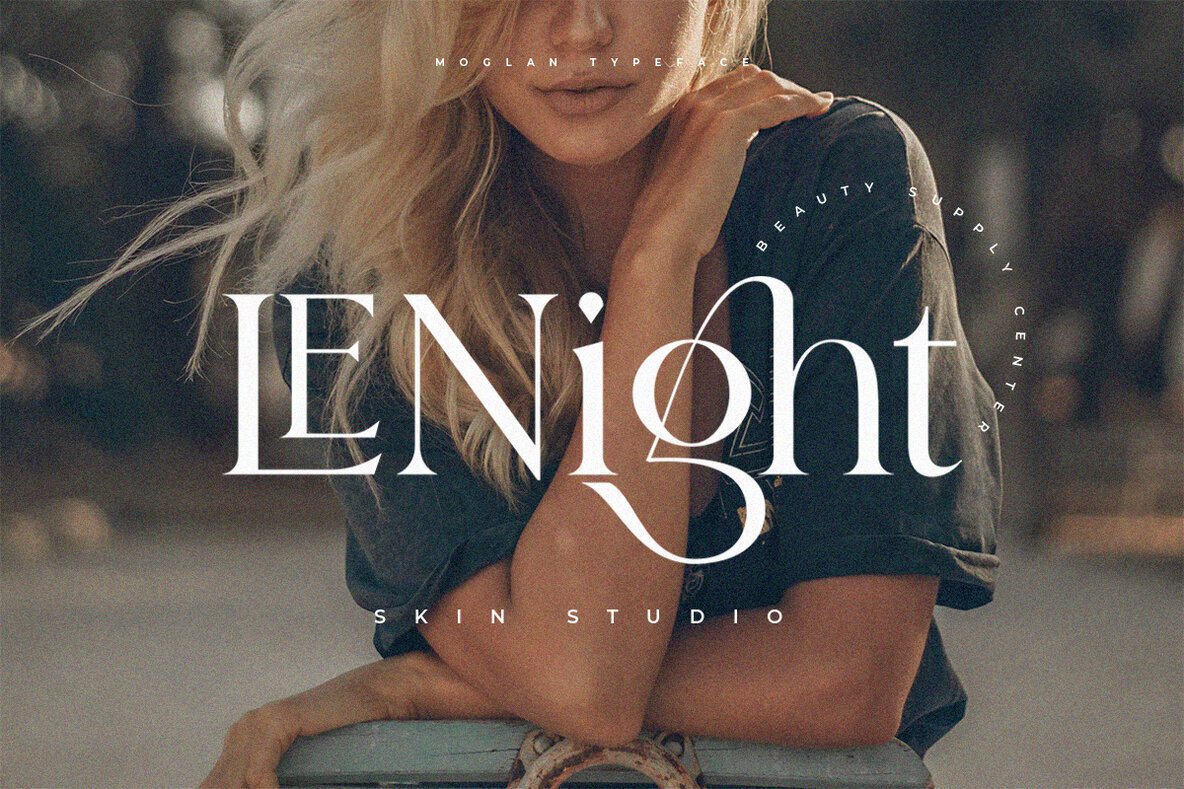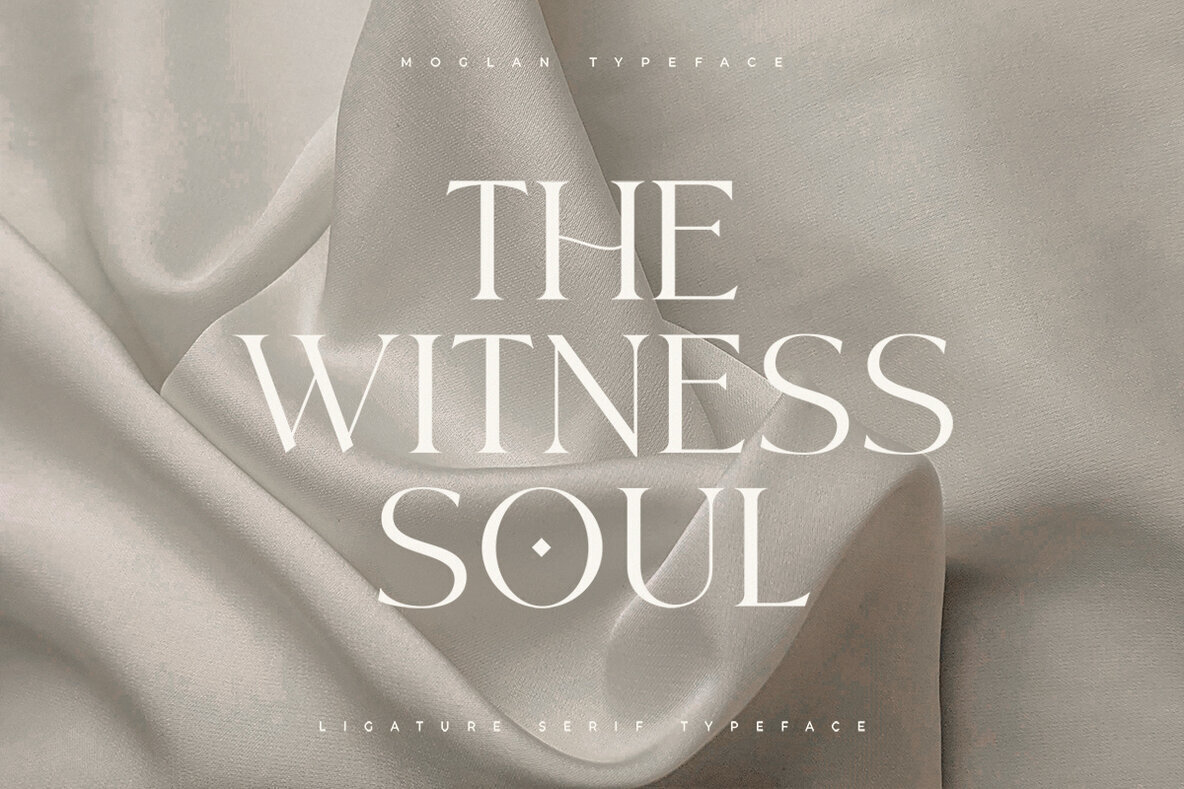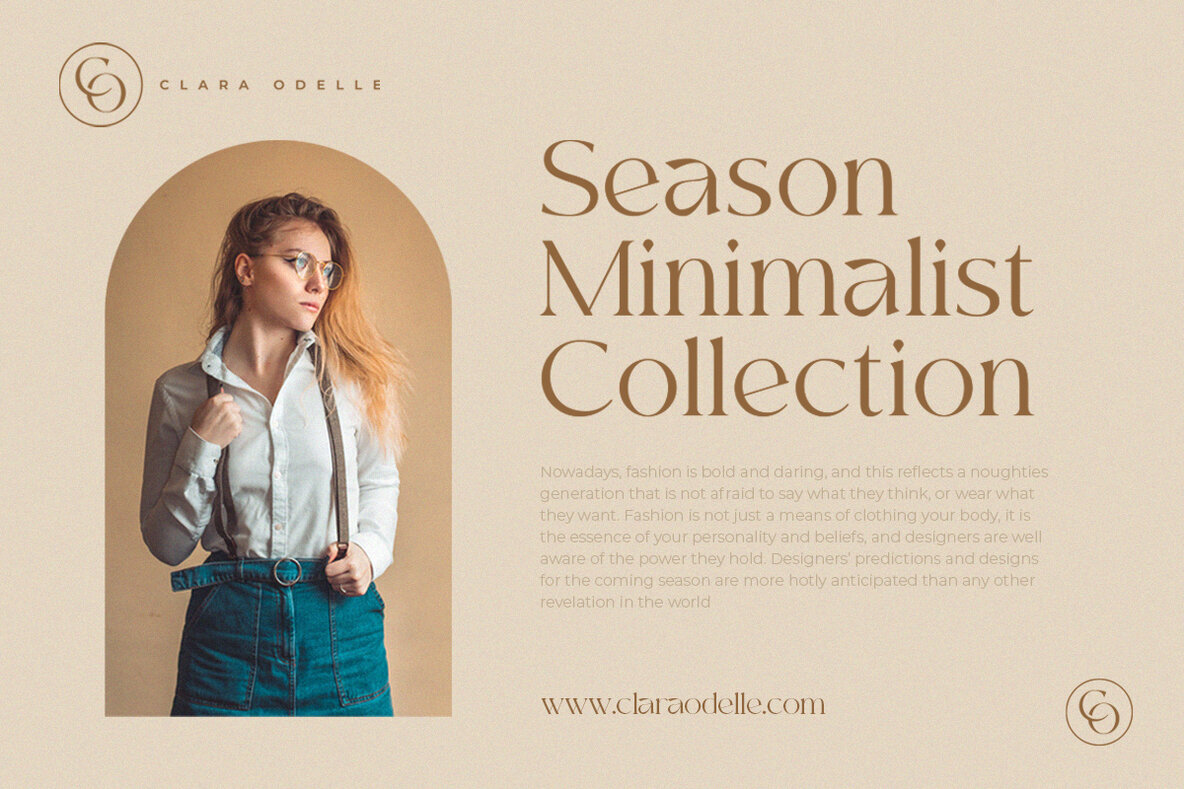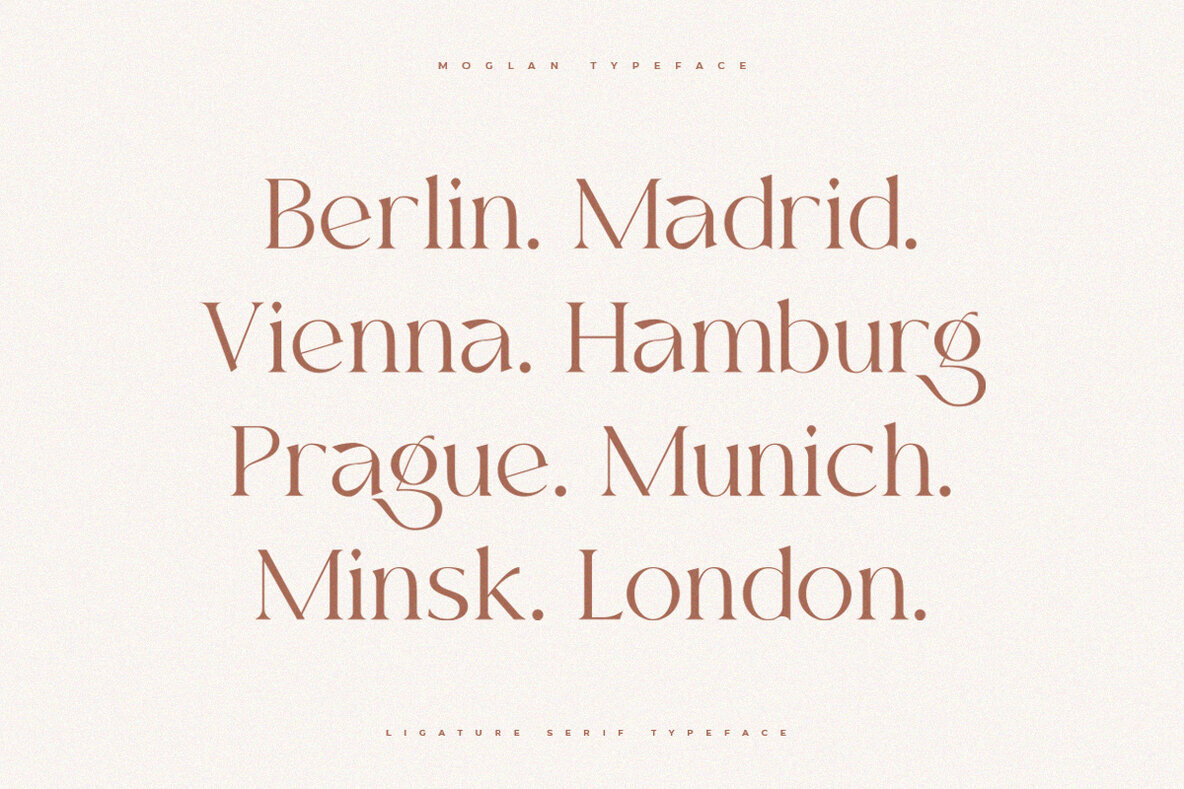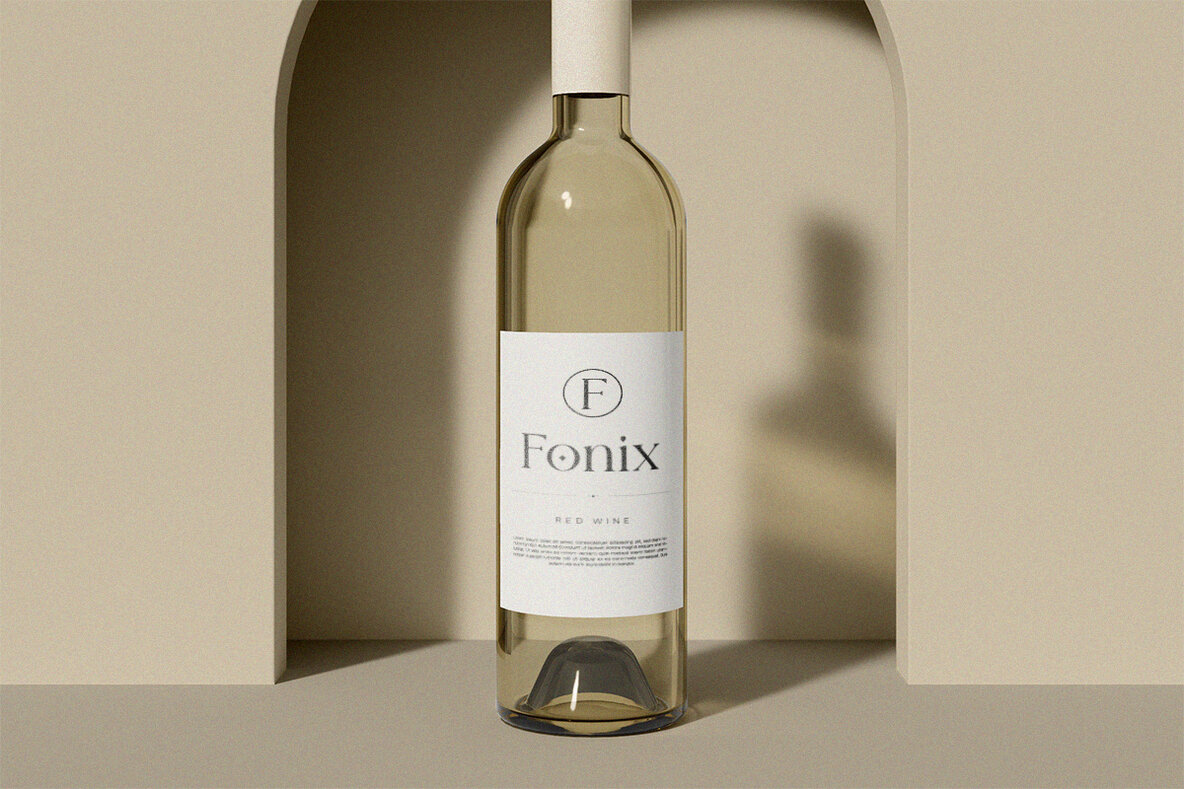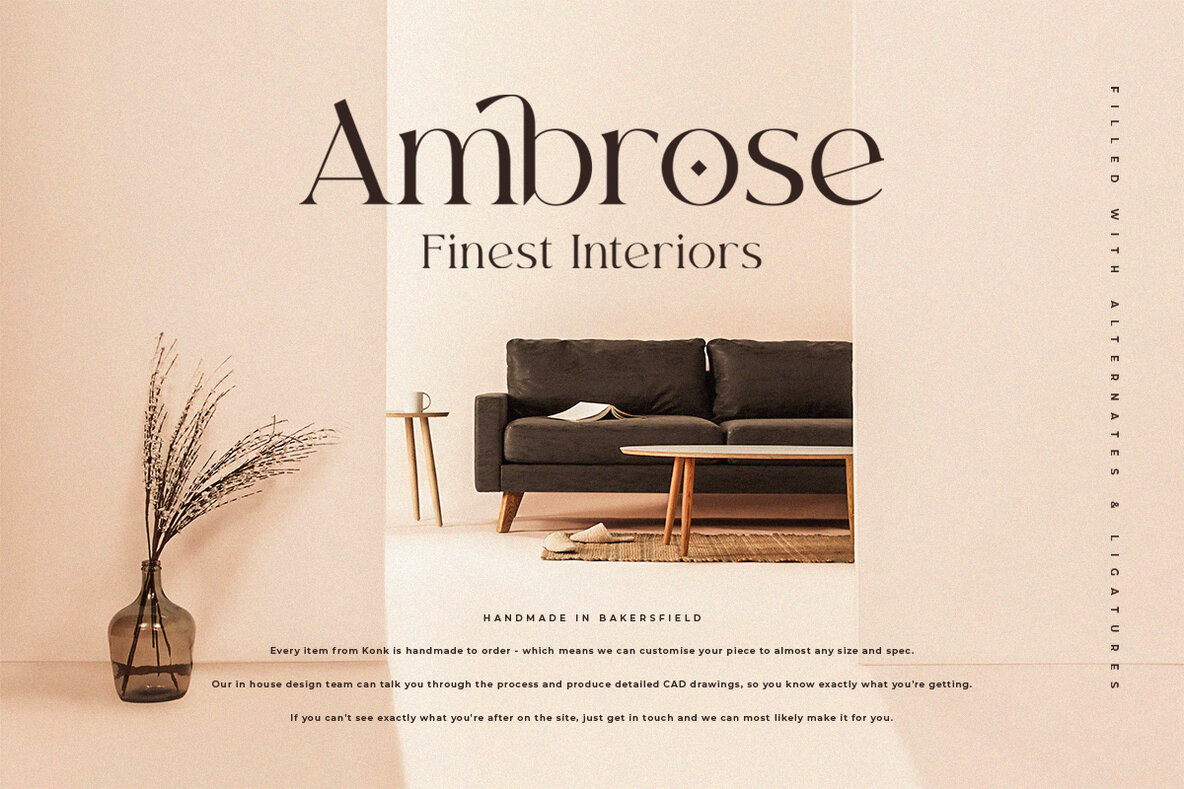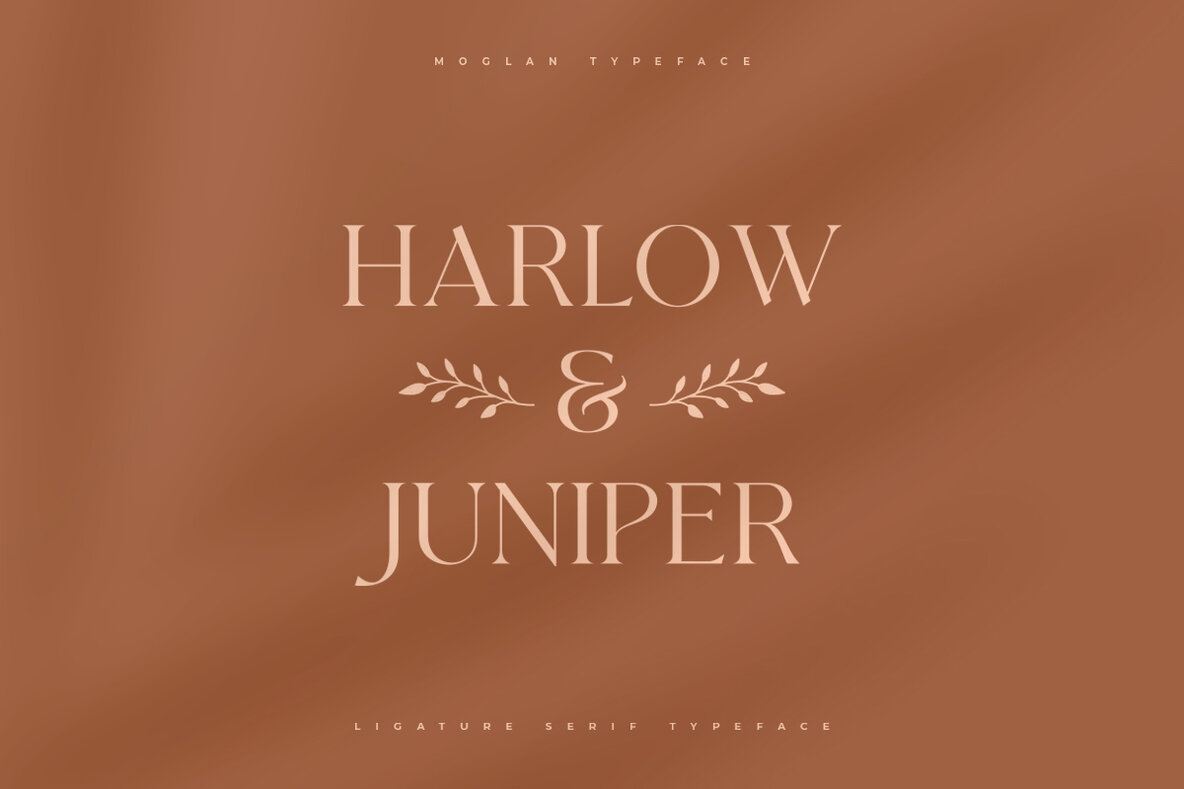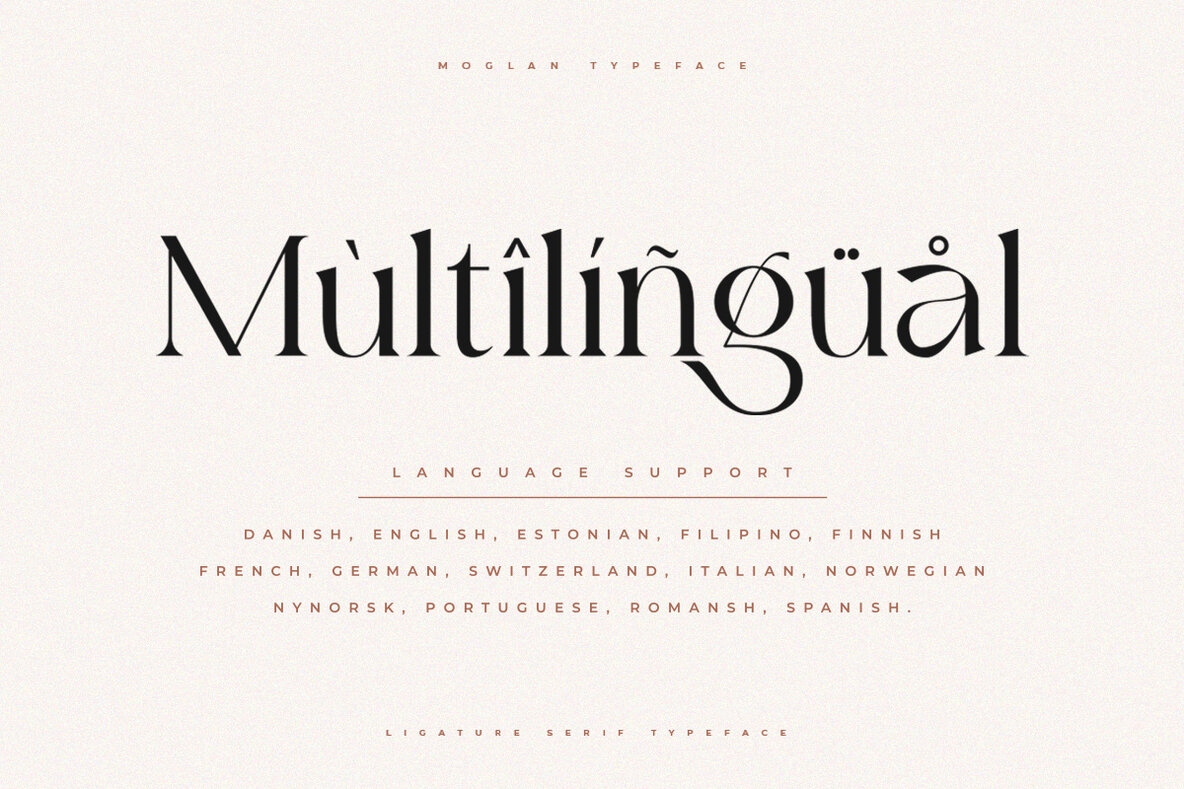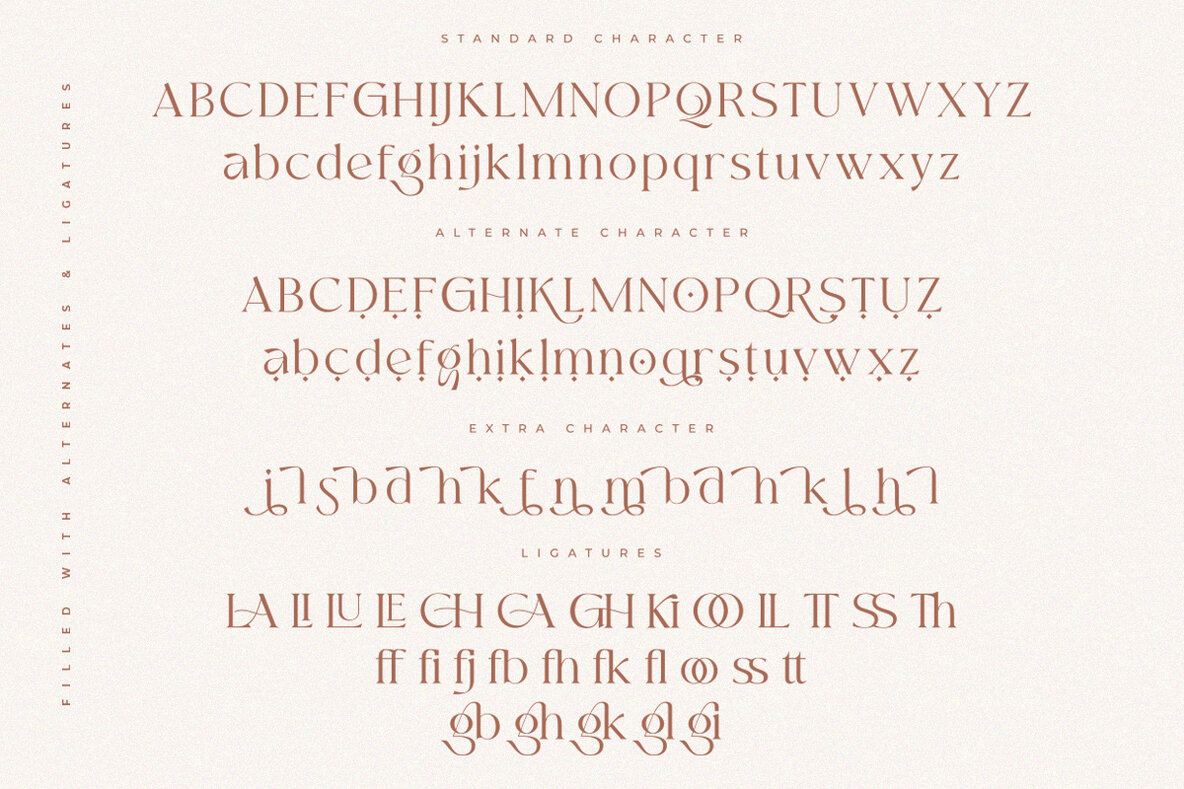
Moglan Font
Moglan
Moglan is a distinctive modern serif font that infuses a contemporary twist into traditional design. It draws inspiration from classic serif typefaces while incorporating ligatures that add a unique, elegant aesthetic.Moglan: A Contemporary Ligature Serif